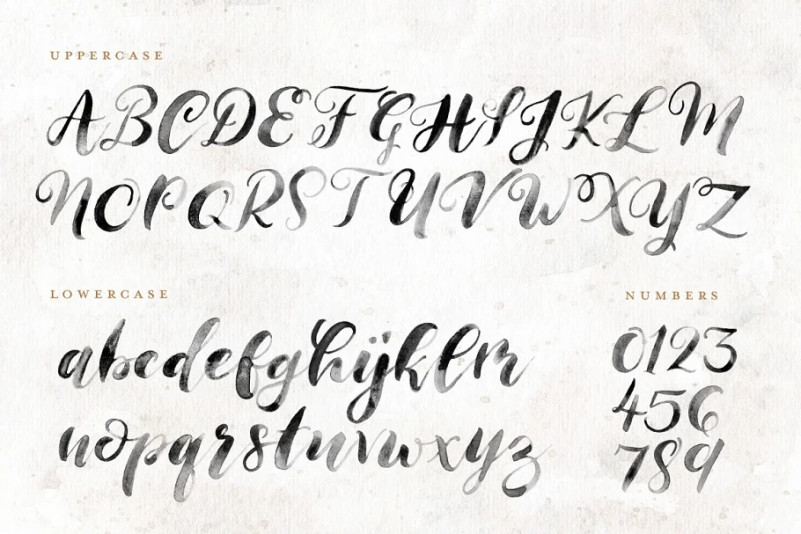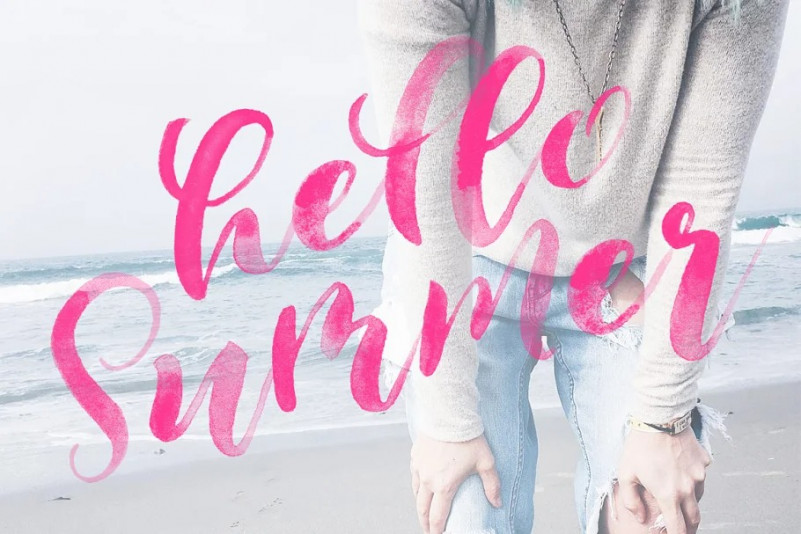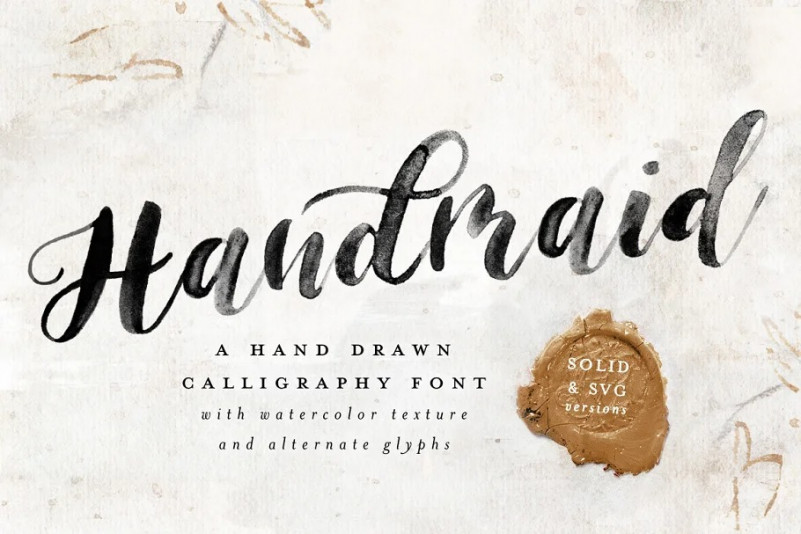
Handmaid Font
Introducing Handmaid, the debut handmade font from Pink House Press! Please note: you must have Photoshop CC 2017 and/or Illustrator CC 2018 (or newer) to access the textured (SVG) version of Handmaid! If you don’t have the compatible software, I’ve also included a transparent image file of each character so you can piece letters together manually using your preferred software.